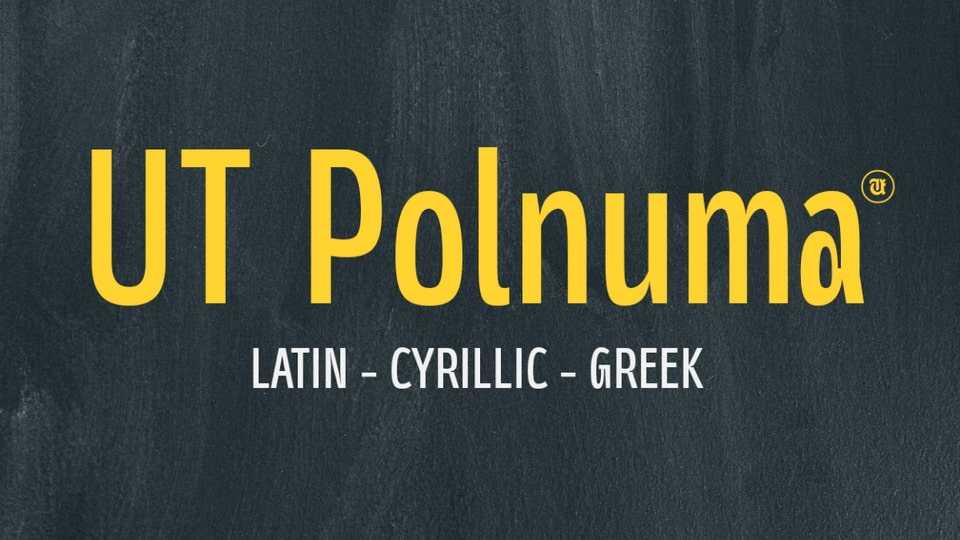
Download UT Polnuma font,, a versatile and modern sans-serif typeface. Designed with a focus on readability and legibility, UT Polnuma is perfect for both digital and print media.
Designer: Universitype Foundry